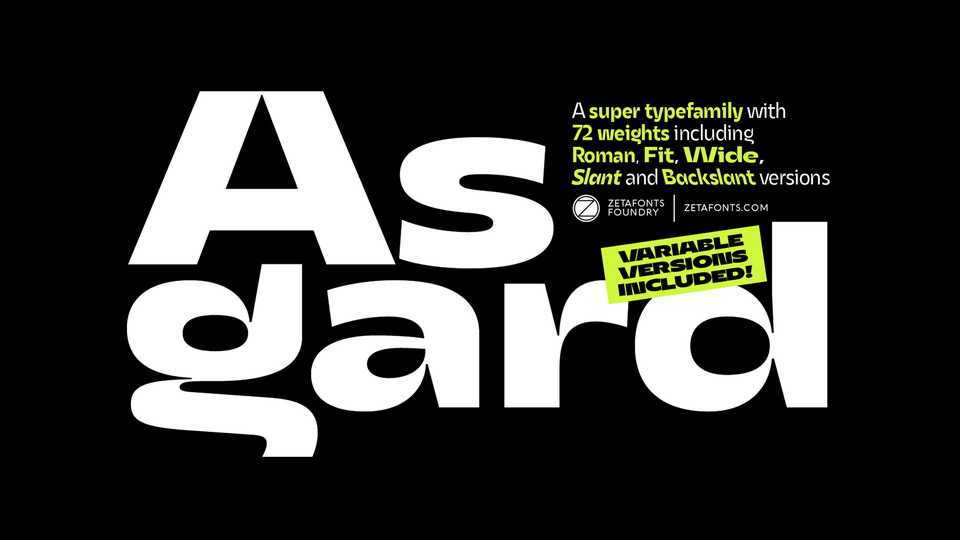
Download Asgard typeface, a display font family that mixes the raw energy of extra bold sans serif typography with the expressivity of high contrast and calligraphy-inspired letterforms. Dynamic and expressive, Asgard is a super-family that manages to look brutal and refined at the same time.
Designer: Zetafonts